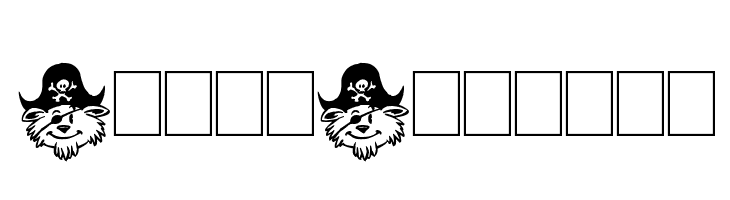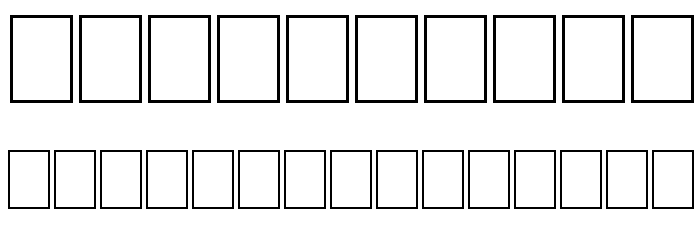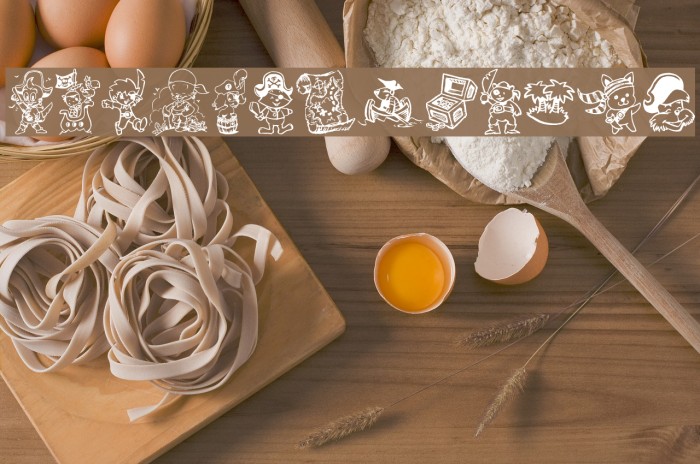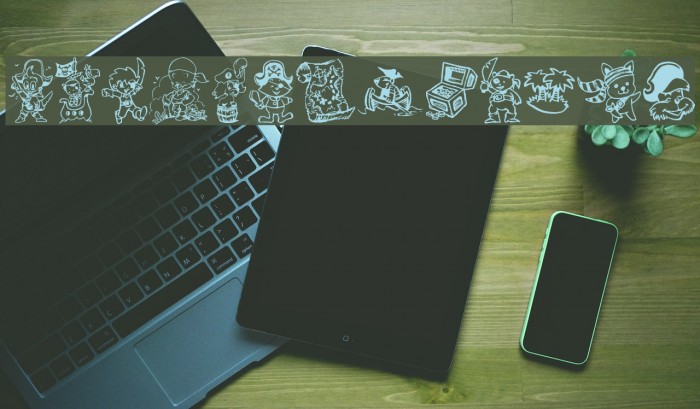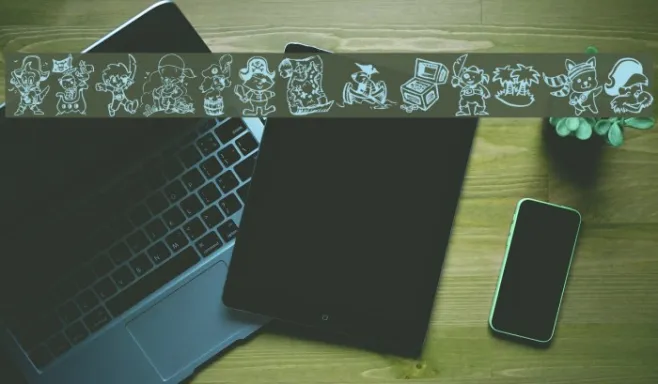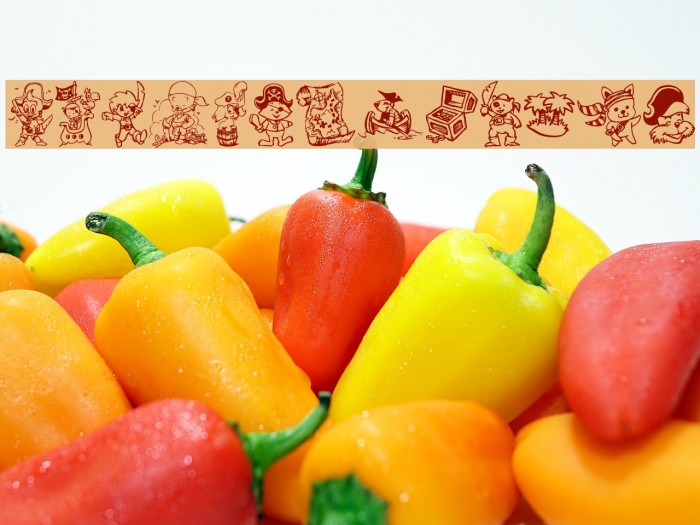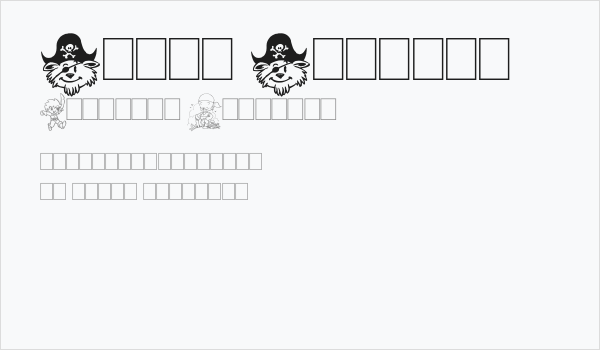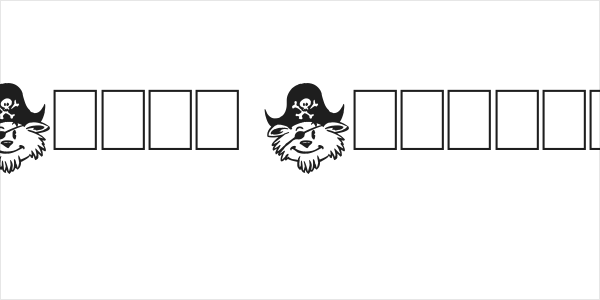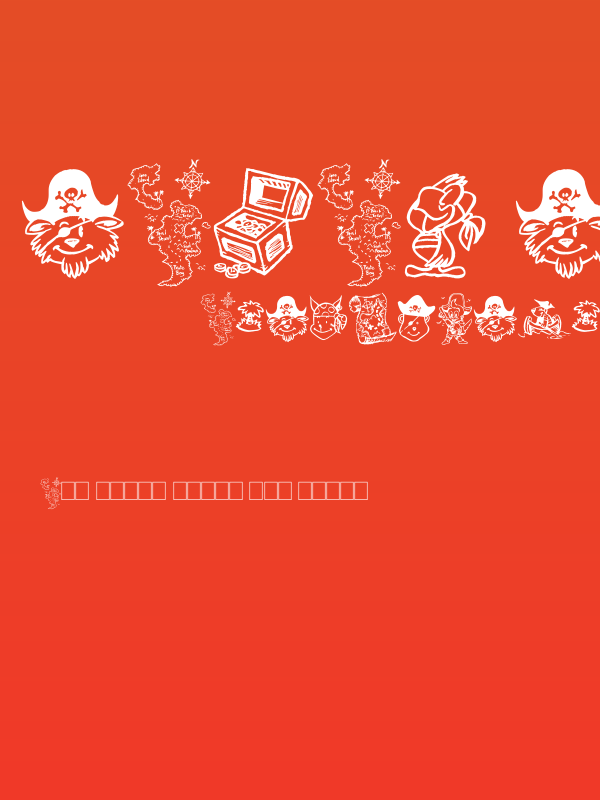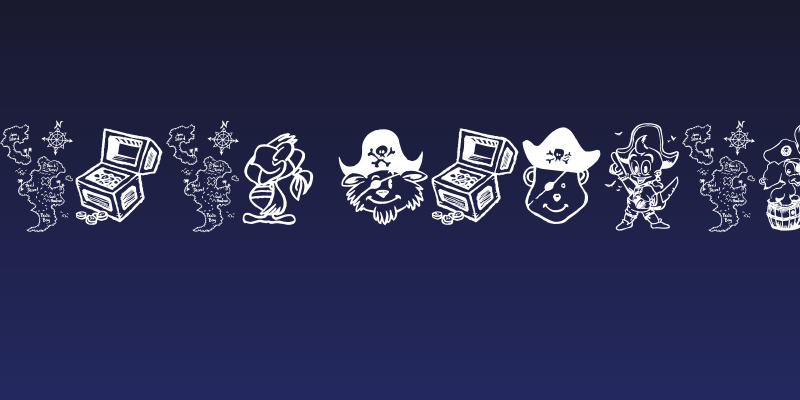
Ptits Pirates Font
Ptits Pirates Description
A playful, decorative font featuring pirate-themed cartoon illustrations for each character, including pirates, treasure chests, maps, and sea creatures. Each letter and symbol is represented by a unique, detailed drawing, making it highly illustrative and themed.
Overall StyleDecorative, Playful, Themed
Use CaseHeadlines, Posters, Themed graphics, ChildrenÒ€ℒs materials
Proposed ProjectsChildrenÒ€ℒs party invitations, pirate-themed event posters, educational materials, playful branding, themed games.